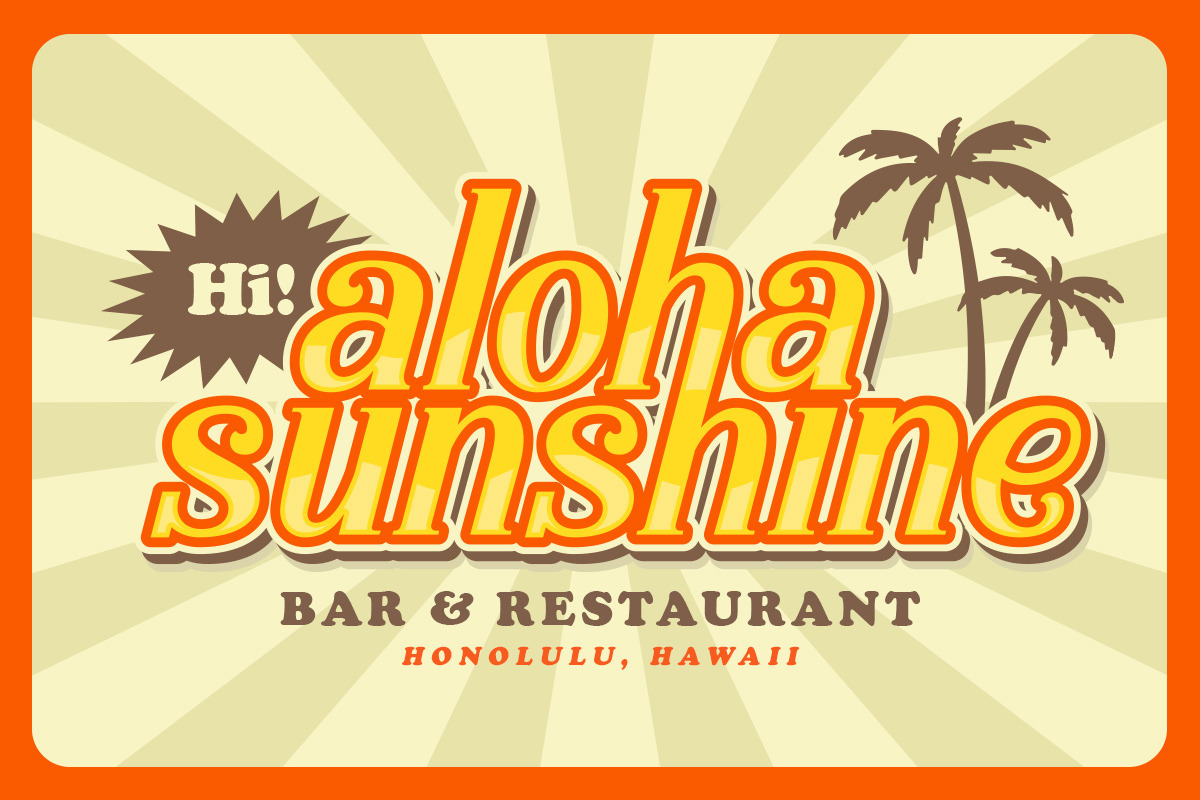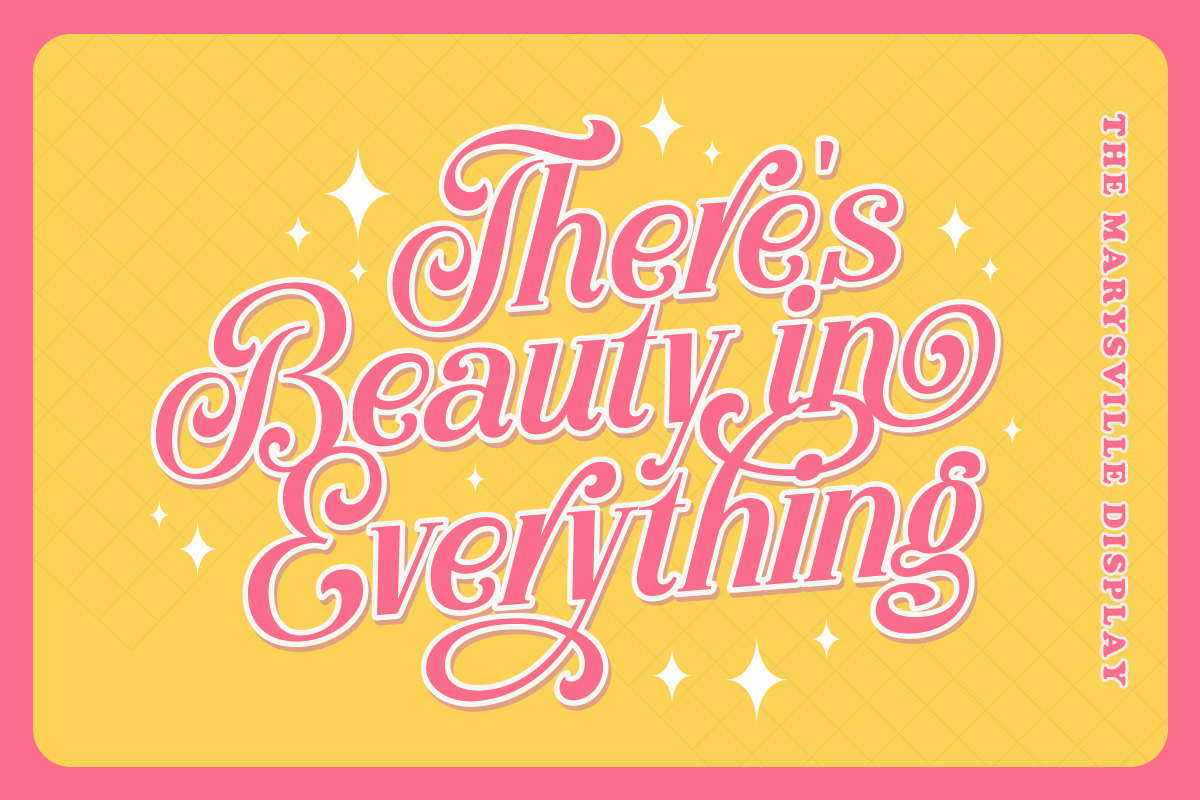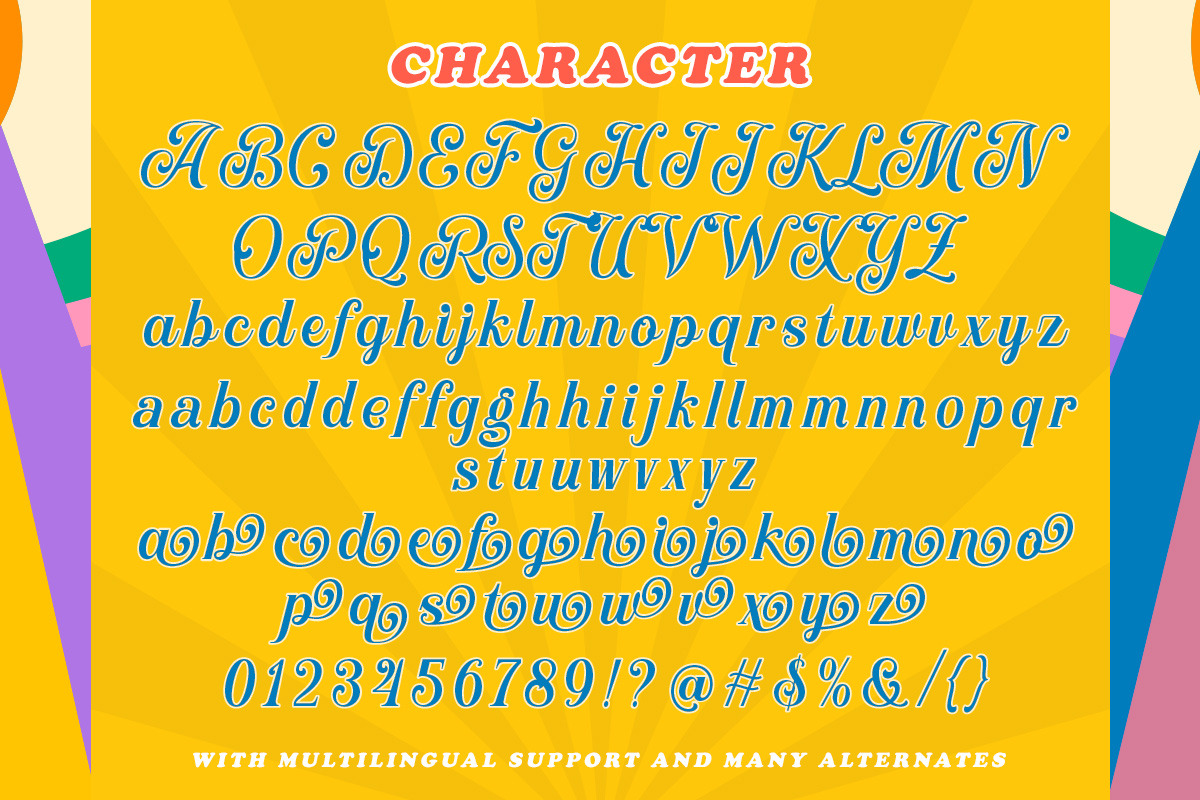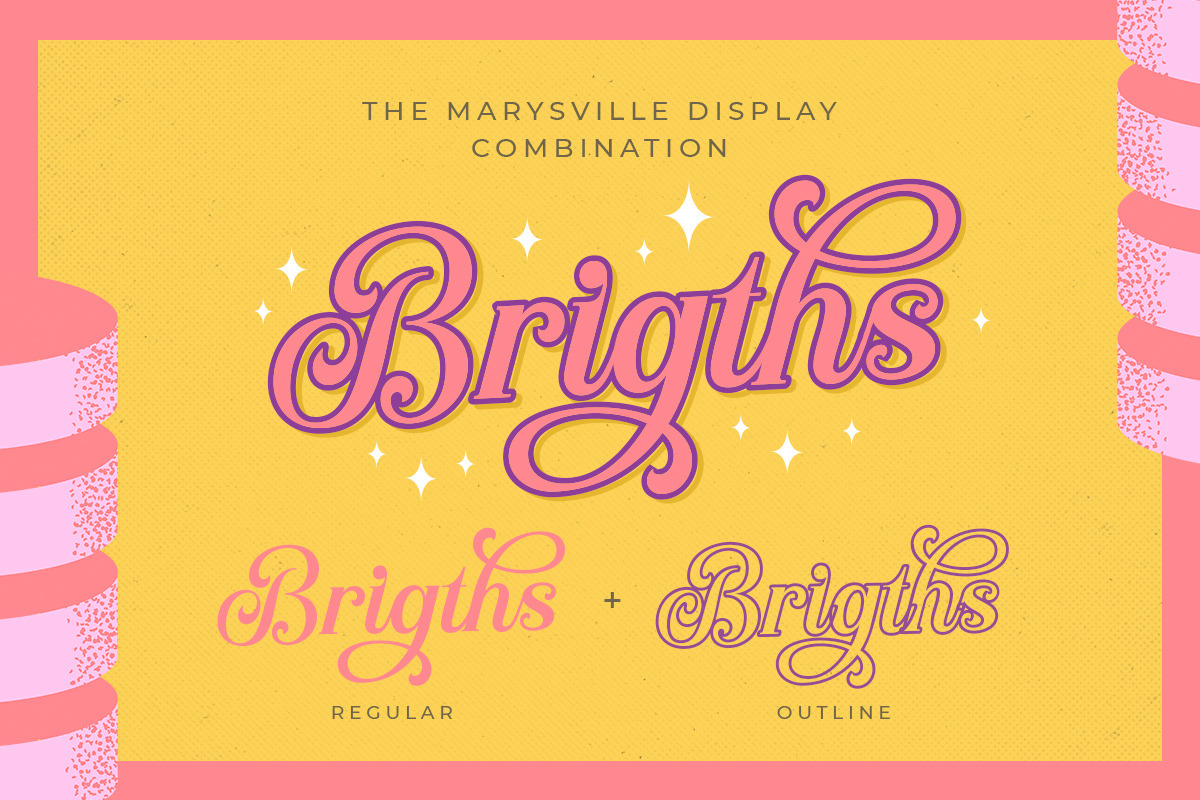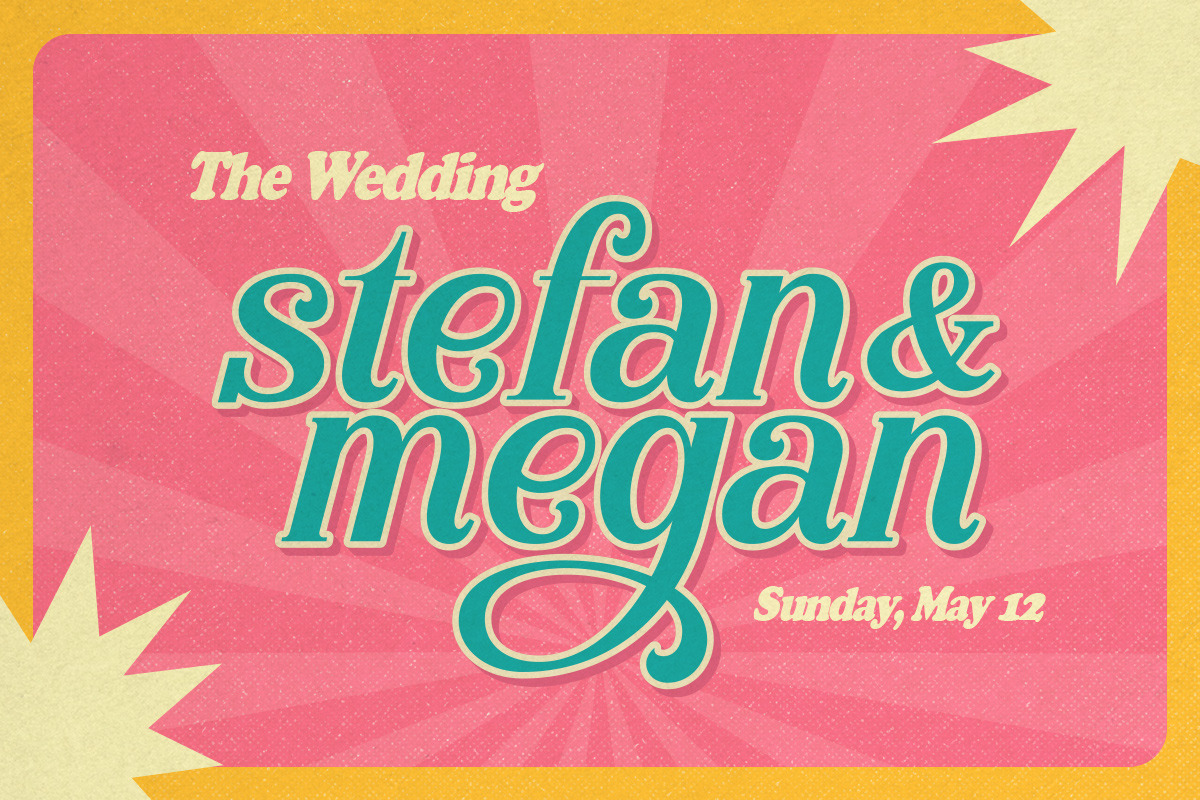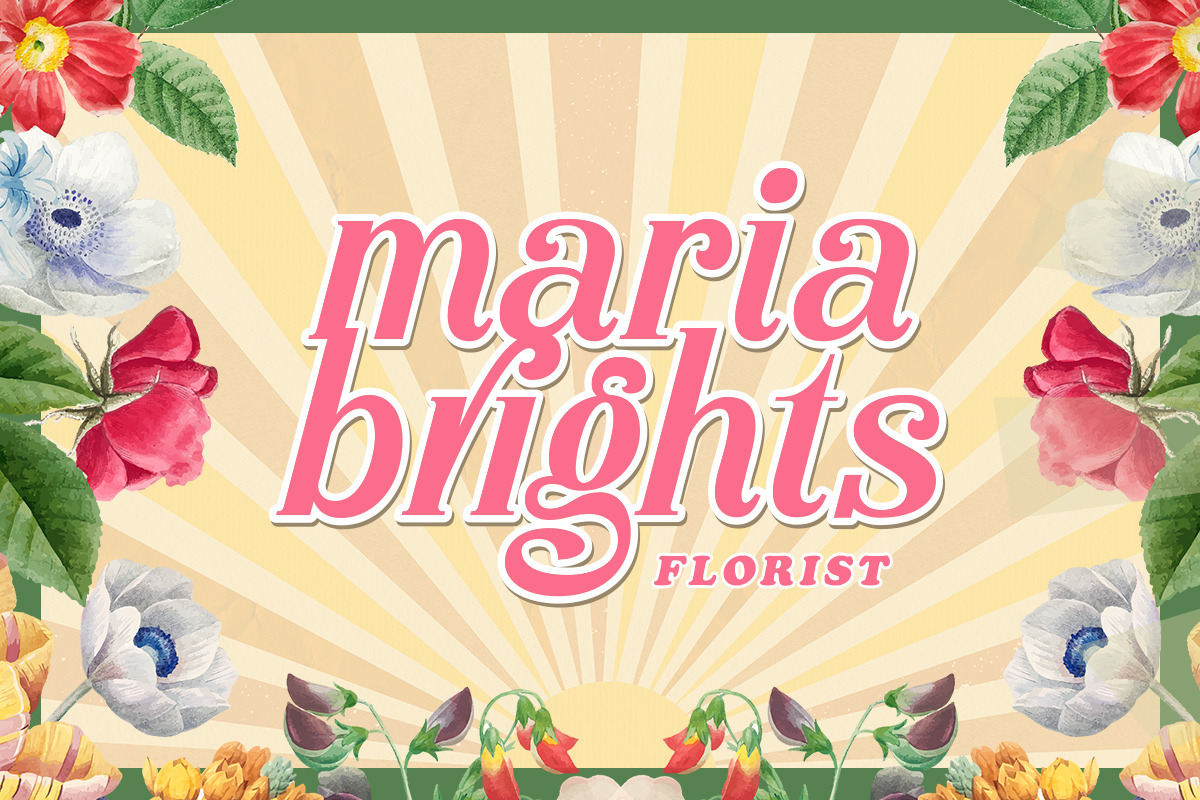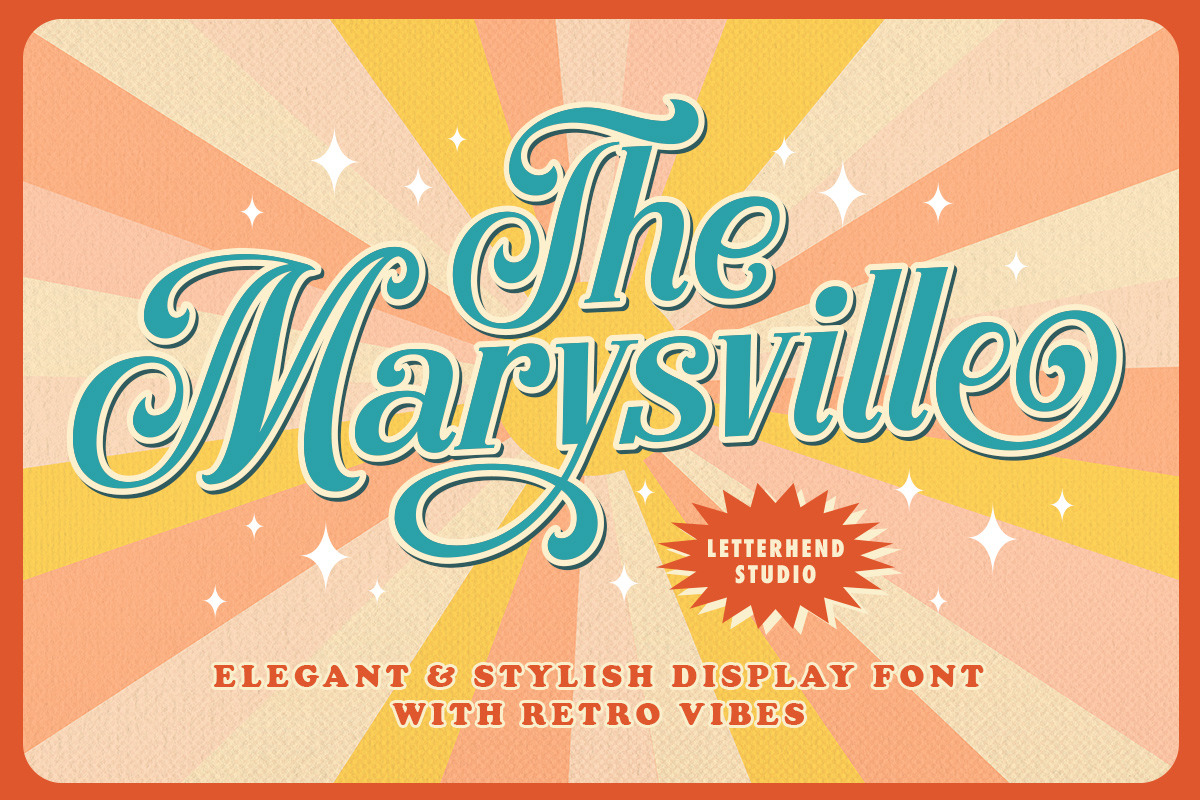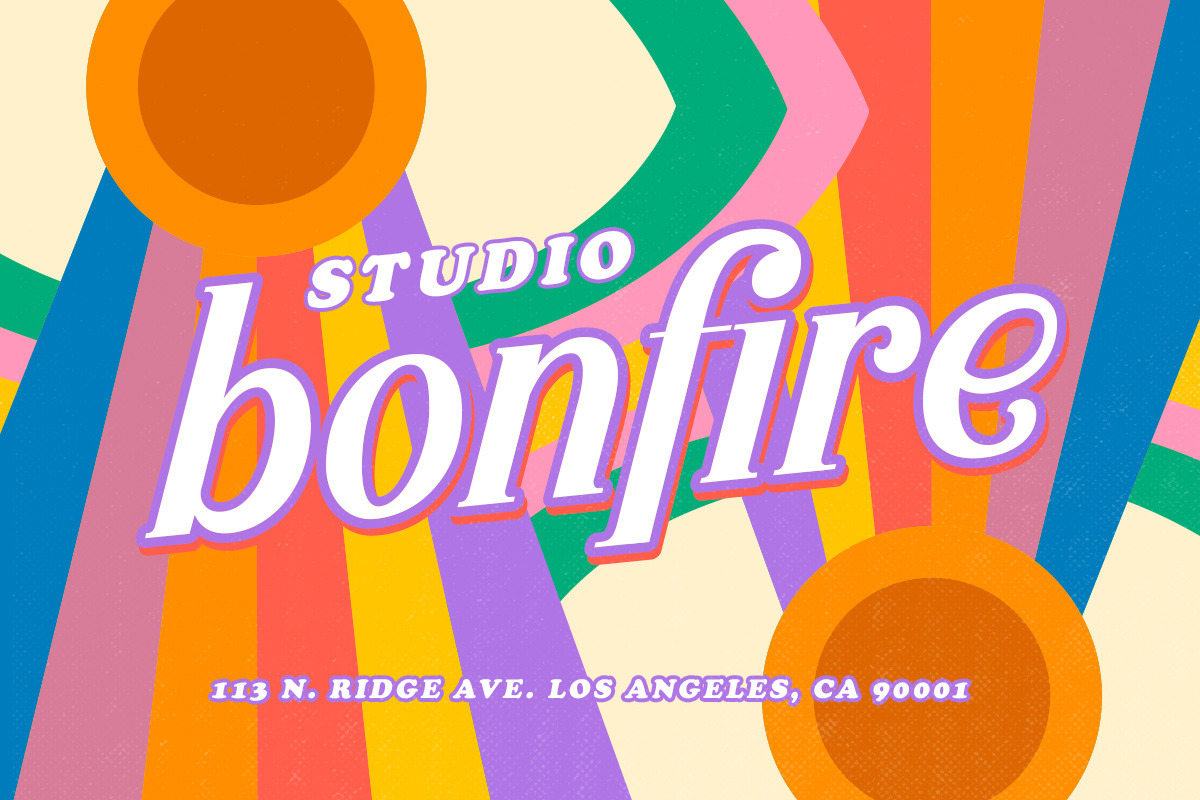
The Marysville - Retro Font
Introducing, The Marysville. A retro bold script which will bring you back to 60s feel.This font perfectly made to be applied especially in logo, and the other various formal forms such as invitations, labels, logos, magazines, books, greeting / wedding cards, packaging, fashion, make up, stationery, novels, labels or any type of advertising purpose.
- alternates
- swashes